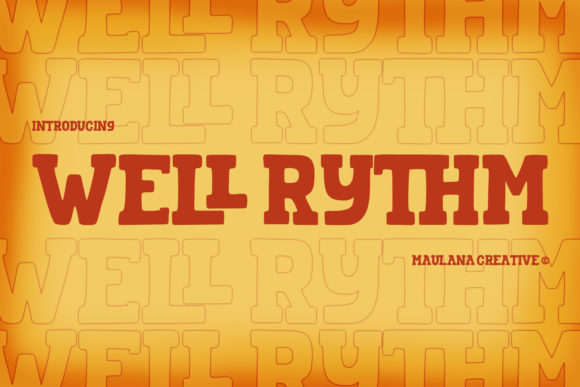
Journey into the realm of captivating typography with Wellrythm Font, the ultimate display font that commands attention and ignites creativity. Crafted with meticulous precision by Maulana Creative, this font exudes boldness and coolness, leaving an indelible mark on your designs.
Embark on a voyage of endless possibilities with Wellrythm Font, the perfect companion for your branding endeavors. Transform your logos into striking visual identities, let your t-shirts speak volumes with unique typography, and breathe life into your sporting designs with a font that exudes energy and dynamism. No matter the context, Wellrythm Font will elevate your creations to new heights of visual impact.
Immerse yourself in a symphony of styles with Wellrythm Font. Its versatile nature allows you to effortlessly adapt it to a myriad of projects, from eye-catching posters to captivating social media graphics. Let your imagination run wild as you explore the boundless creative horizons that await you with this remarkable font.